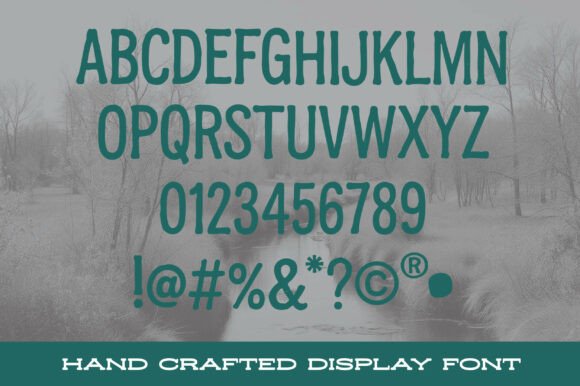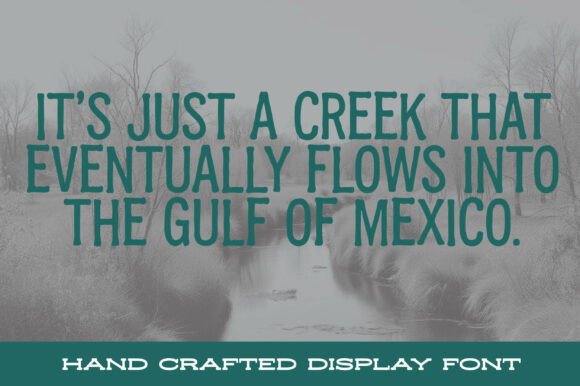
Introduction to Ferson Creek Font
Ferson Creek is a hand-crafted font that flows with the same rugged charm and natural ease as a winding creek through the outdoors.
Its letters carry a slightly weathered, organic feelβ€”balanced between rustic authenticity and vintage character Bold strokes give it presence, while subtle imperfections bring warmth and personality, making it perfect for projects that need a touch of handcrafted soul.
Key Features of Ferson Creek Font